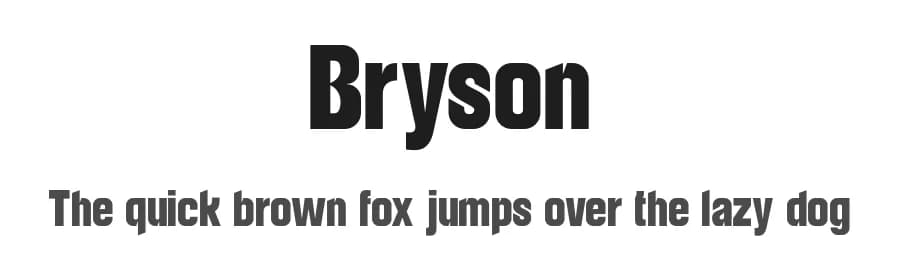
About Bryson Font
Introducing Bryson, A bold sans serif ligature typeface. The Bryson typeface is characterized by simple but distinctive shapes. The typeface is very eye catching, its tight kerning and bold shapes makes it great for retro designs. You can use it for a wide range of projects, including print and web.
Bryson Font is a versatile sans-serif font that works for both headings and body text. Pair it with a contrasting serif or slab serif font to add visual interest and a clear distinction between titles and body copy.
Bryson Font